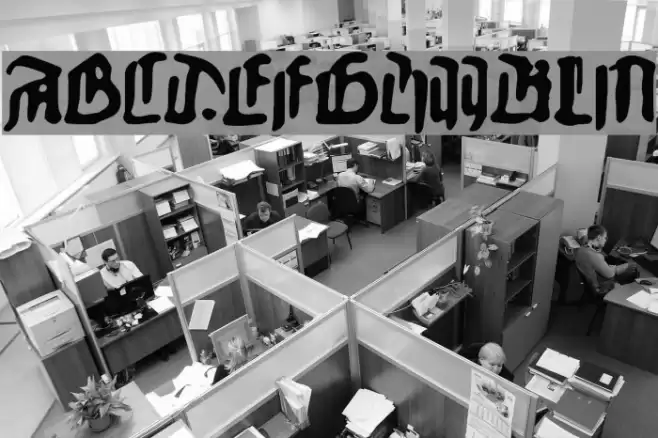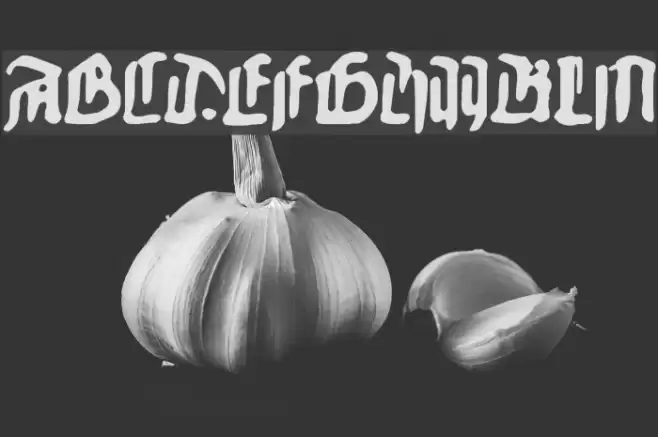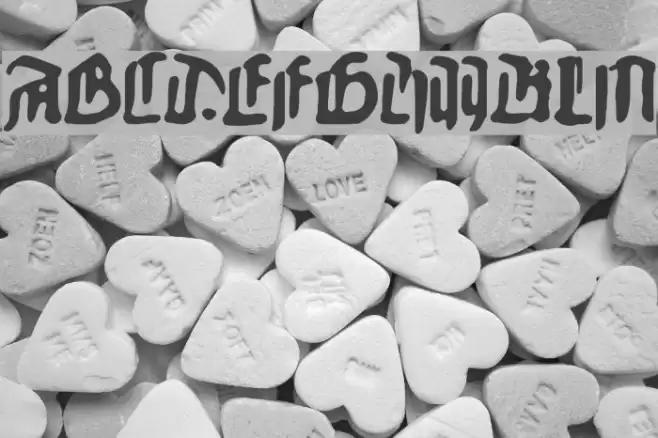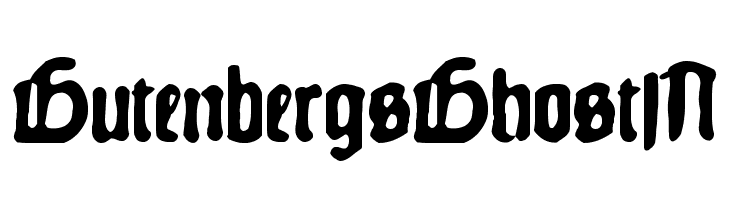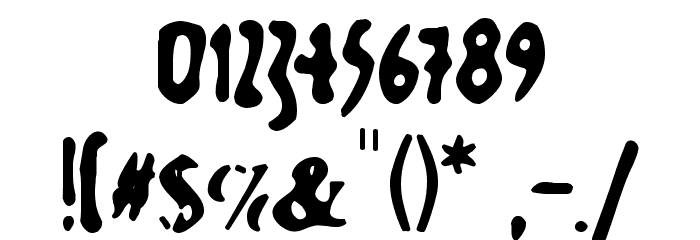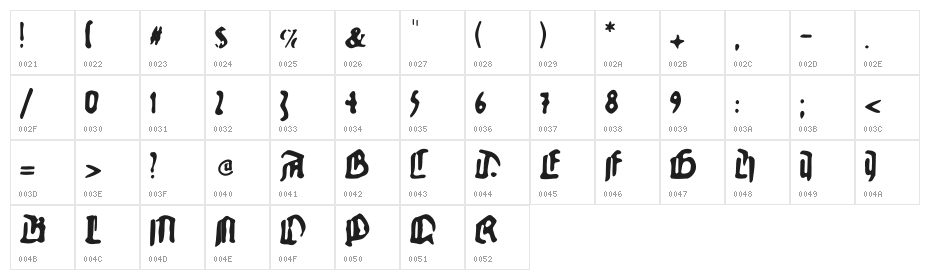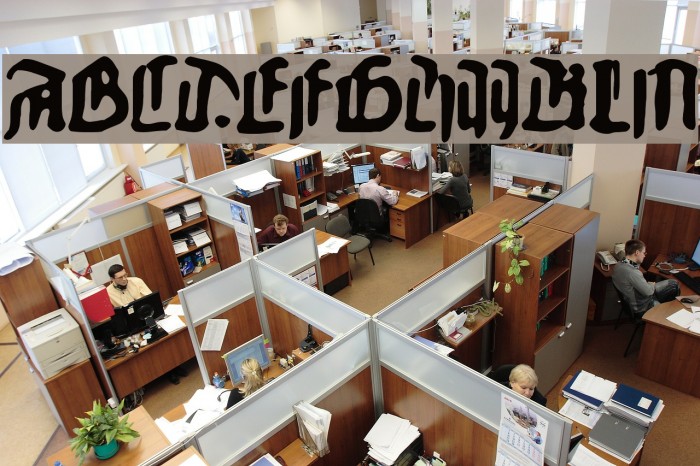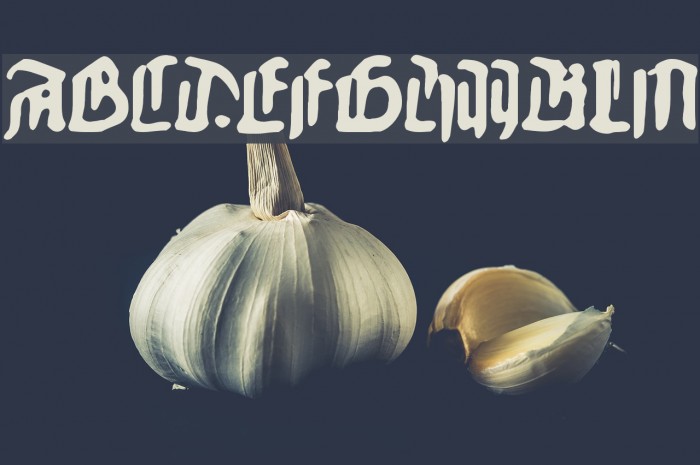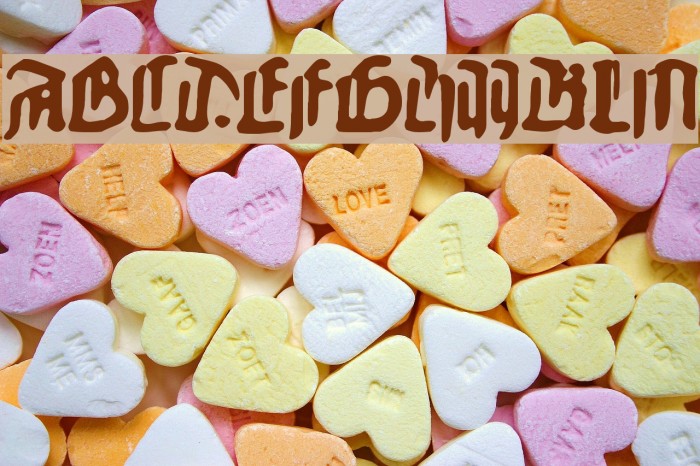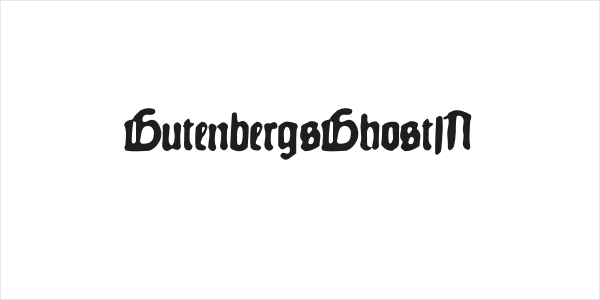
GutenbergsGhostM Font
GutenbergsGhostM Description
This font exudes a historical and gothic charm, reminiscent of medieval script with its bold, blackletter style. The characters are intricately designed with sharp angles and dramatic curves, creating a sense of old-world elegance. The uppercase letters are particularly ornate, with elaborate flourishes that enhance their visual impact. The lowercase letters maintain a consistent style, offering a harmonious flow that complements the uppercase set. Numbers and special characters are equally stylized, ensuring a cohesive look across all elements. This font is ideal for projects that require a touch of antiquity and sophistication.
A bold, gothic blackletter font with intricate, medieval-inspired design from Uncategorized fonts.
- Proposed Projects: Perfect for historical documents, fantasy-themed designs, book covers, or branding that requires a vintage or gothic aesthetic.
- Overall Style: Vintage